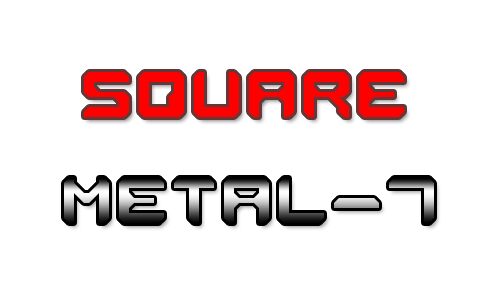
Square Metal-7 by Style-7 is a free techno display font with broad, squared lettering, sharply clipped corners, and a strong horizontal spread. Open joins and strategic breaks give the characters a fabricated, panel-cut appearance, and the low, extended proportions recall labels and serial markings on industrial equipment.
Game interfaces are its most convincing setting. The same engineered shapes suit motorsport branding, electronic music posters, and science-fiction merchandise, where the lettering can echo machinery, armored vehicles, circuit housings, and technical diagrams. It is particularly effective as interface lettering because the segmented forms already closely resemble markings stamped into a metal console.
Square Metal-7